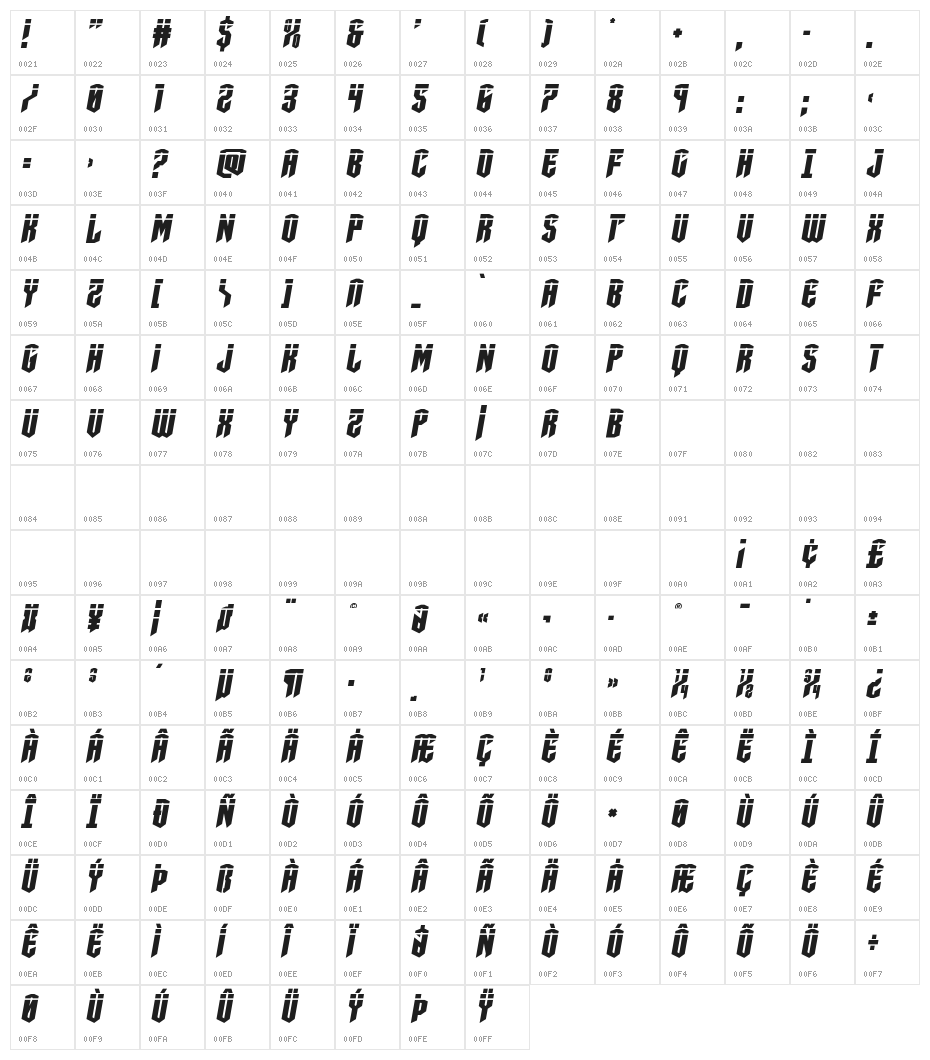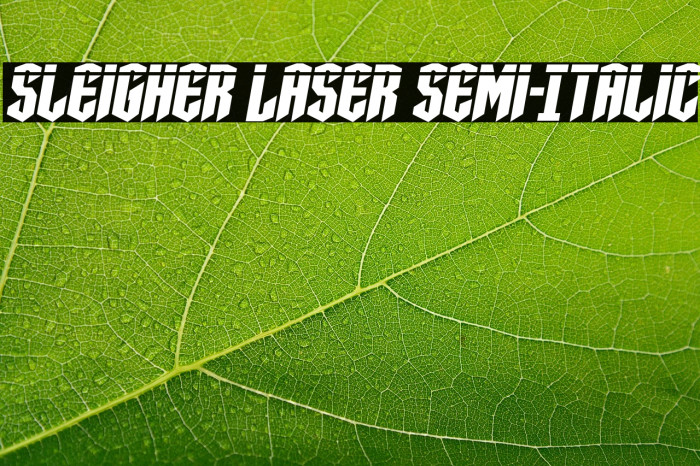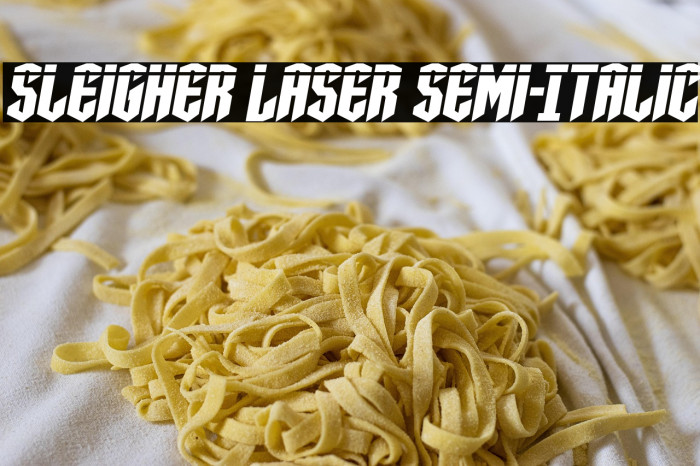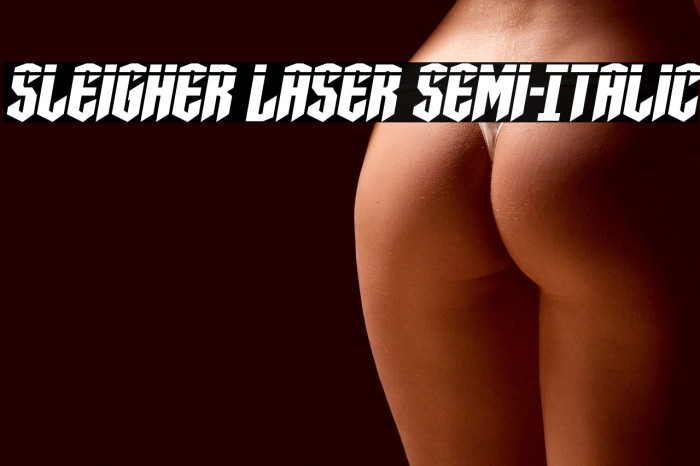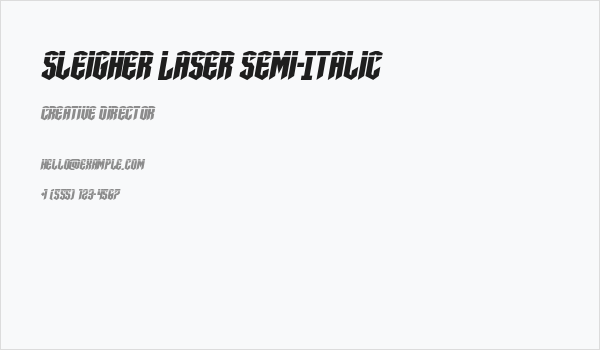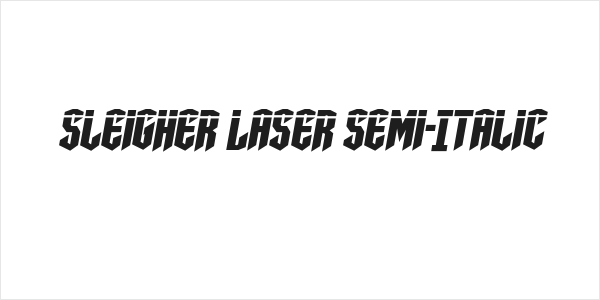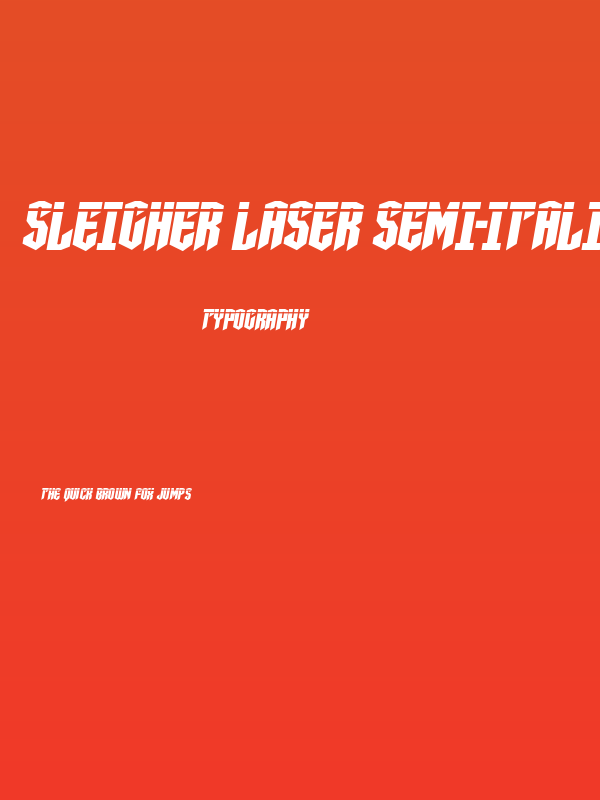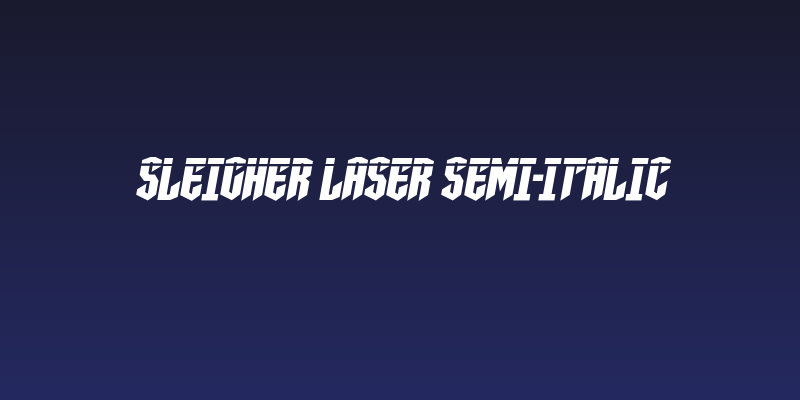
Sleigher Laser Semi-Italic Font
Sleigher Laser Semi-Italic Description
This font features a bold and dynamic design with sharp, angular edges and a futuristic aesthetic. The characters are heavily stylized, with a distinct slant that gives them a sense of motion and energy. The uppercase and lowercase letters maintain a consistent style, with exaggerated serifs and a strong presence. Numbers and special characters are equally bold, ensuring a cohesive look across all text. The font's unique style makes it ideal for projects that require a modern and edgy appearance.
| Proposed Projects | Ideal for sci-fi themed designs, video game titles, posters, and branding that requires a modern, edgy look. |